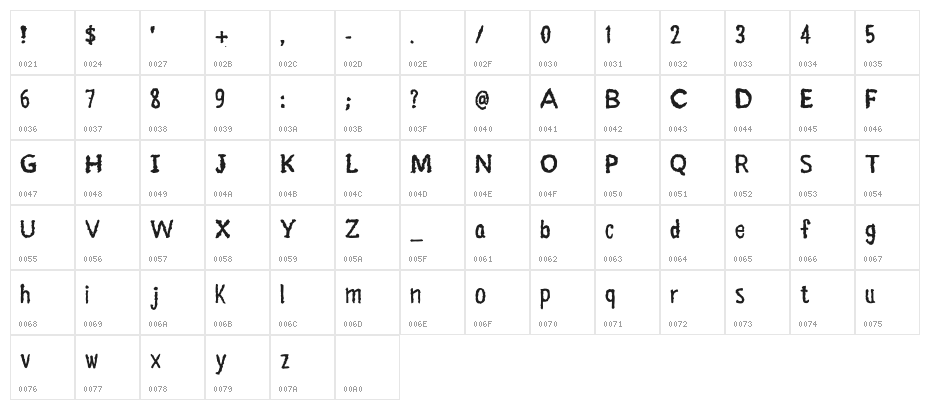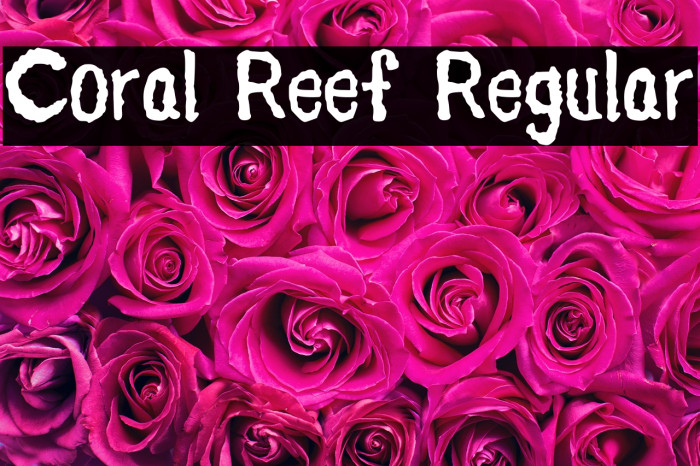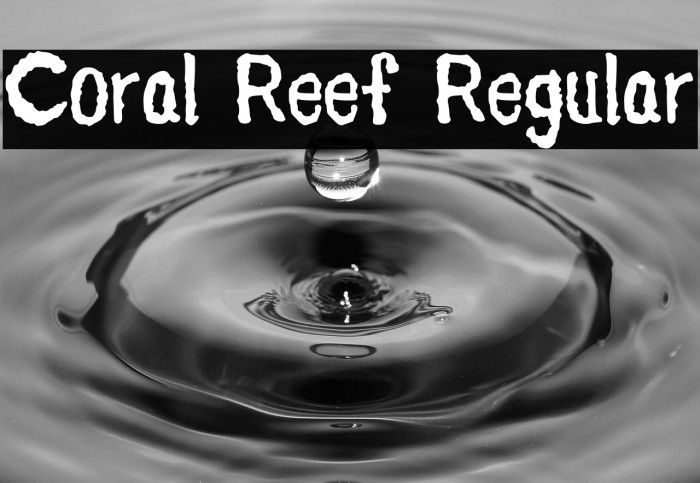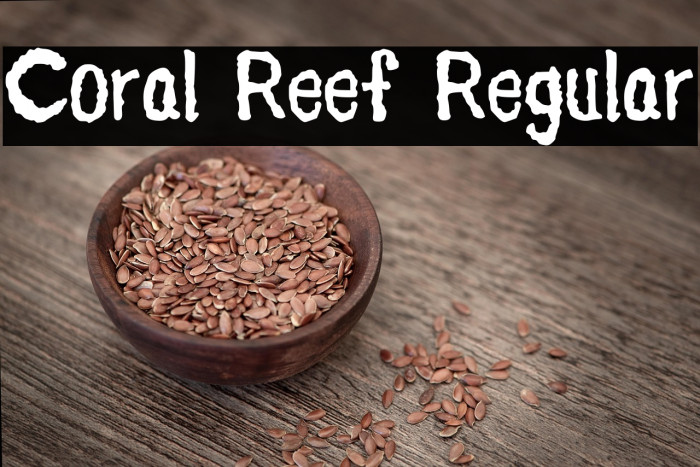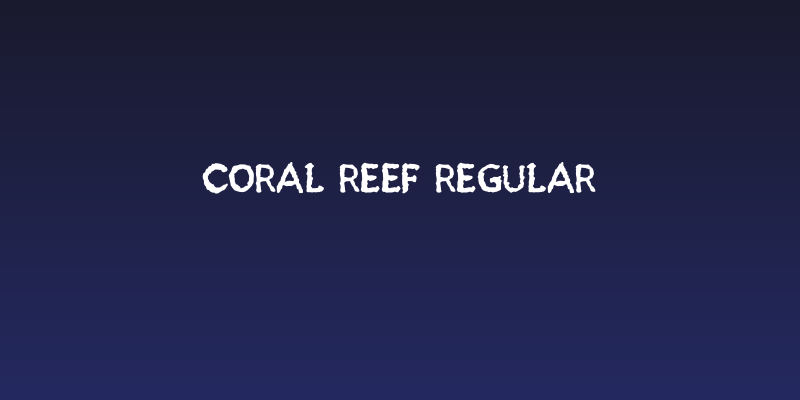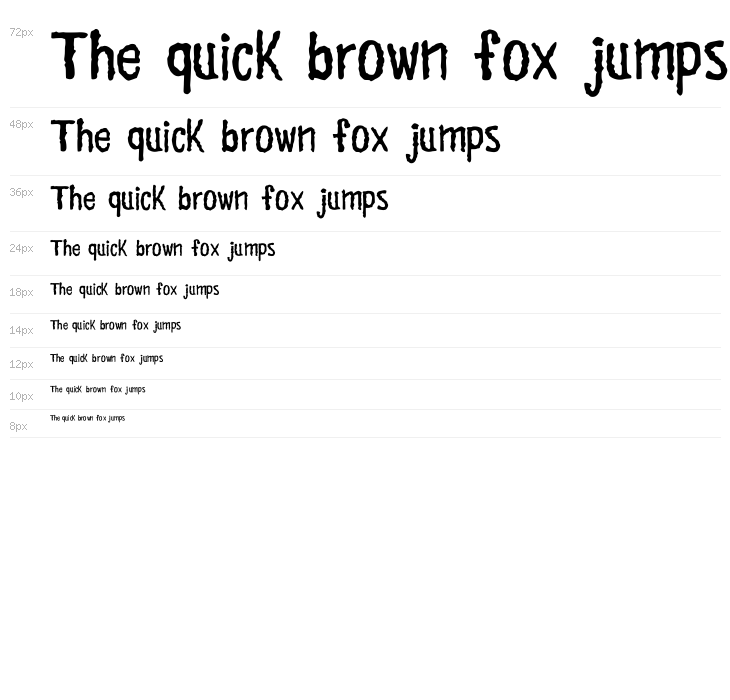
Coral Reef Regular Font
Coral Reef Regular Description
This font features a unique, organic texture reminiscent of coral reefs, with a playful and slightly irregular form that adds a natural, hand-crafted feel. The characters are bold and have a rough, uneven edge that suggests a sense of movement and fluidity. The uppercase and lowercase letters maintain a consistent style, with the uppercase being slightly more pronounced. Numbers and special characters follow the same design ethos, making them cohesive with the alphabet. This font is ideal for projects that require a touch of nature or an artistic flair.
| Proposed Projects | Ideal for eco-friendly branding, artistic posters, children's books, and nature-themed designs. |